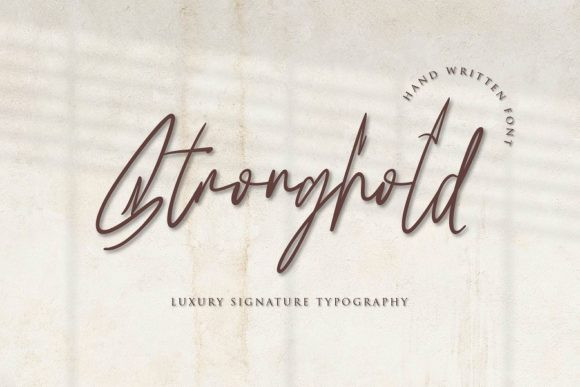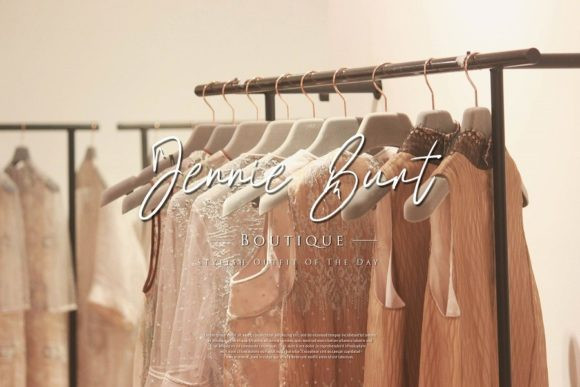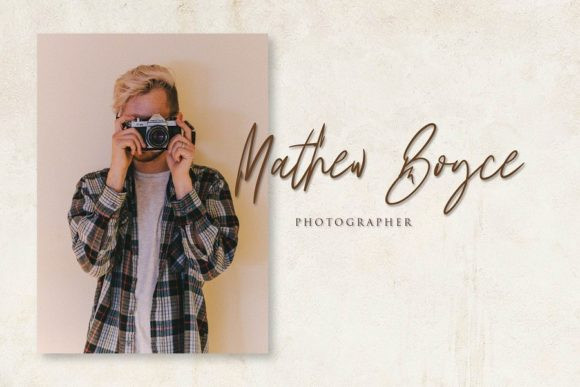
Stronghold Font
Stronghold is a thin lettered, fashionable and distinct handwritten font. It looks beautiful on a variety of designs requiring a personalized style, such as wedding invitations, thank you cards, weddings, greeting cards, logos and so on.